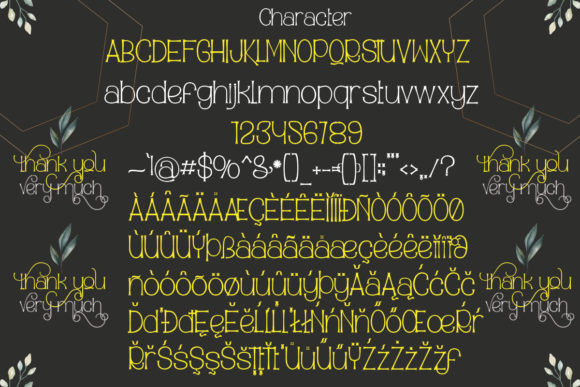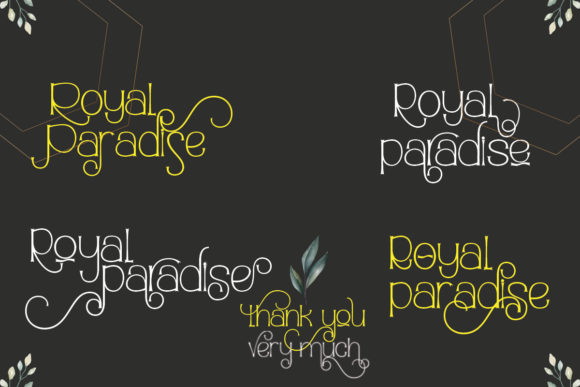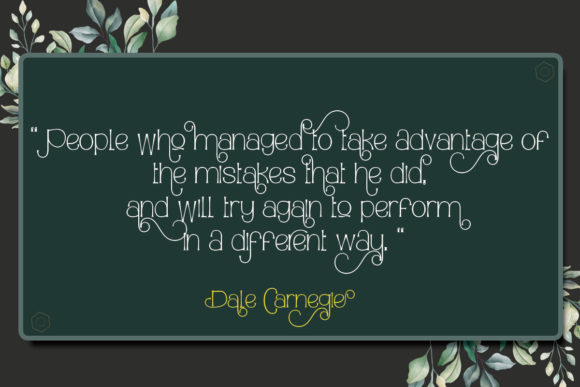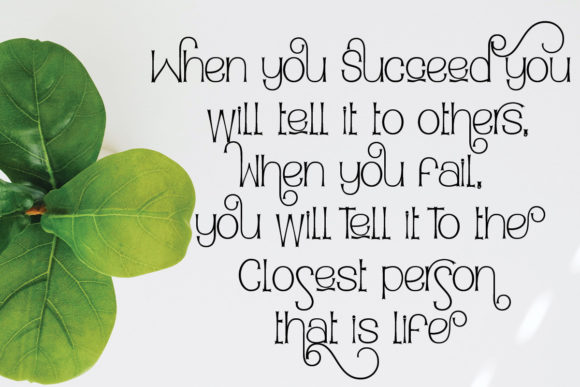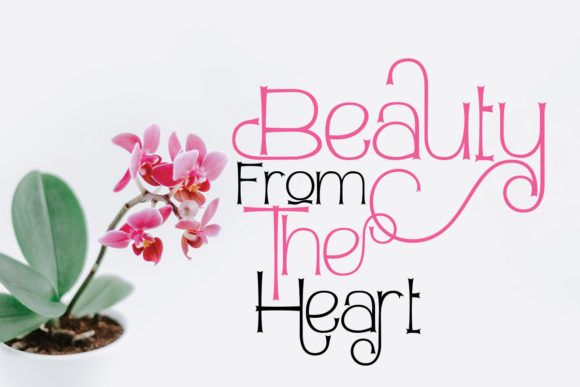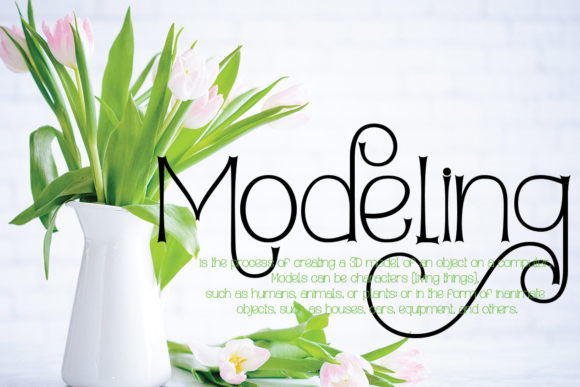
Introduction to Royal Paradise Font
Have you ever stared at a blank canvas, searching for the perfect font to bring your creative project to life? For designers, finding that elusive ‘wow factor’ can be a challenge. But what if I told you that the solution lies in a majestic display font, crafted with elegance and sophistication? Welcome to the world of Royal Paradise Font, a high-quality design resource that’s sure to elevate your work to new heights.
With its unique blend of style and sophistication, Royal Paradise Font is the perfect choice for designers looking to make a lasting impression. Whether you’re creating a logo, branding, or quotes, this font is sure to captivate your audience with its beauty and charm. And the best part? It’s PUA encoded, making it easy to access all the glyphs and swashes you need to create a truly stunning design.
Key Features of Royal Paradise Font
- High-quality, elegant design ideal for creative projects, including wedding invitations, luxury branding, and more.
- Features a transparent background, allowing for seamless integration with any design or image.
- Includes multiple font sizes and resolutions, including 1000 x 1000 pixels at 300 DPI, to suit various design needs.
- Unique characteristics include intricate details, ornate flourishes, and a luxurious feel, perfect for high-end designs.
- Perfect for designers seeking a high-quality, sophisticated font for their creative project.
Honest Review: Royal Paradise Font
I recently had the chance to work with the Royal Paradise Font, and I must say it’s been a delightful experience. As a designer, I’m always on the lookout for high-quality design resources that can elevate my creative projects. The Royal Paradise Font definitely delivers.
- The font’s elegant and sophisticated design makes it perfect for luxury branding and high-end design projects.
- The transparent background option allows for seamless integration with any design element.
- The font’s versatility makes it suitable for a wide range of design projects, from corporate identities to wedding invitations.
- The font may not be suitable for projects that require a more playful or informal tone.
- The font’s elegance may make it feel a bit too formal for certain design projects.
Tips for Getting the Most Out of Royal Paradise Font
For the best results, use Royal Paradise Font on a white or light-colored background to make the text stand out. You can also experiment with different font sizes and styles to create a visually appealing design. Additionally, consider pairing Royal Paradise Font with other high-quality design resources to create a cohesive look.